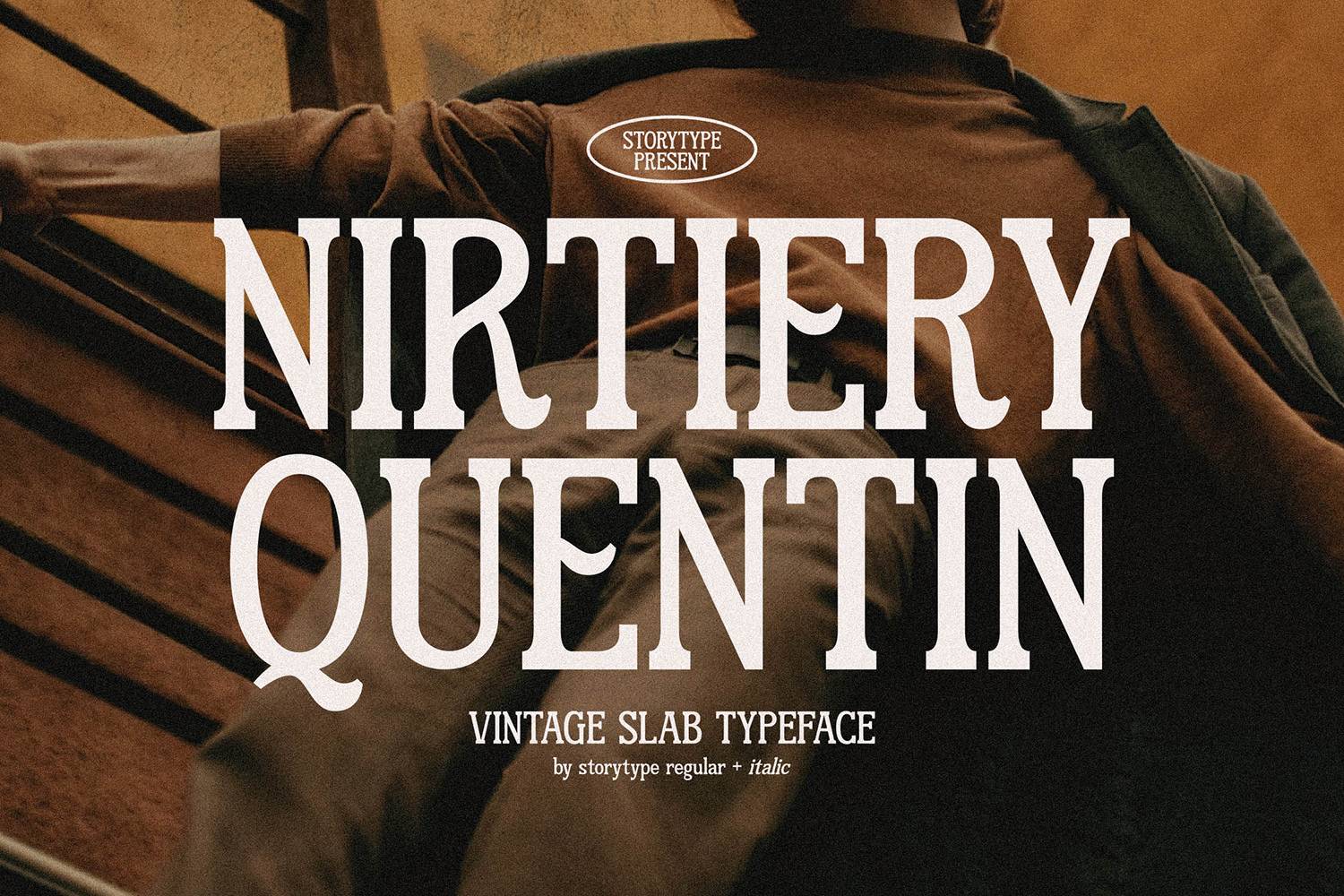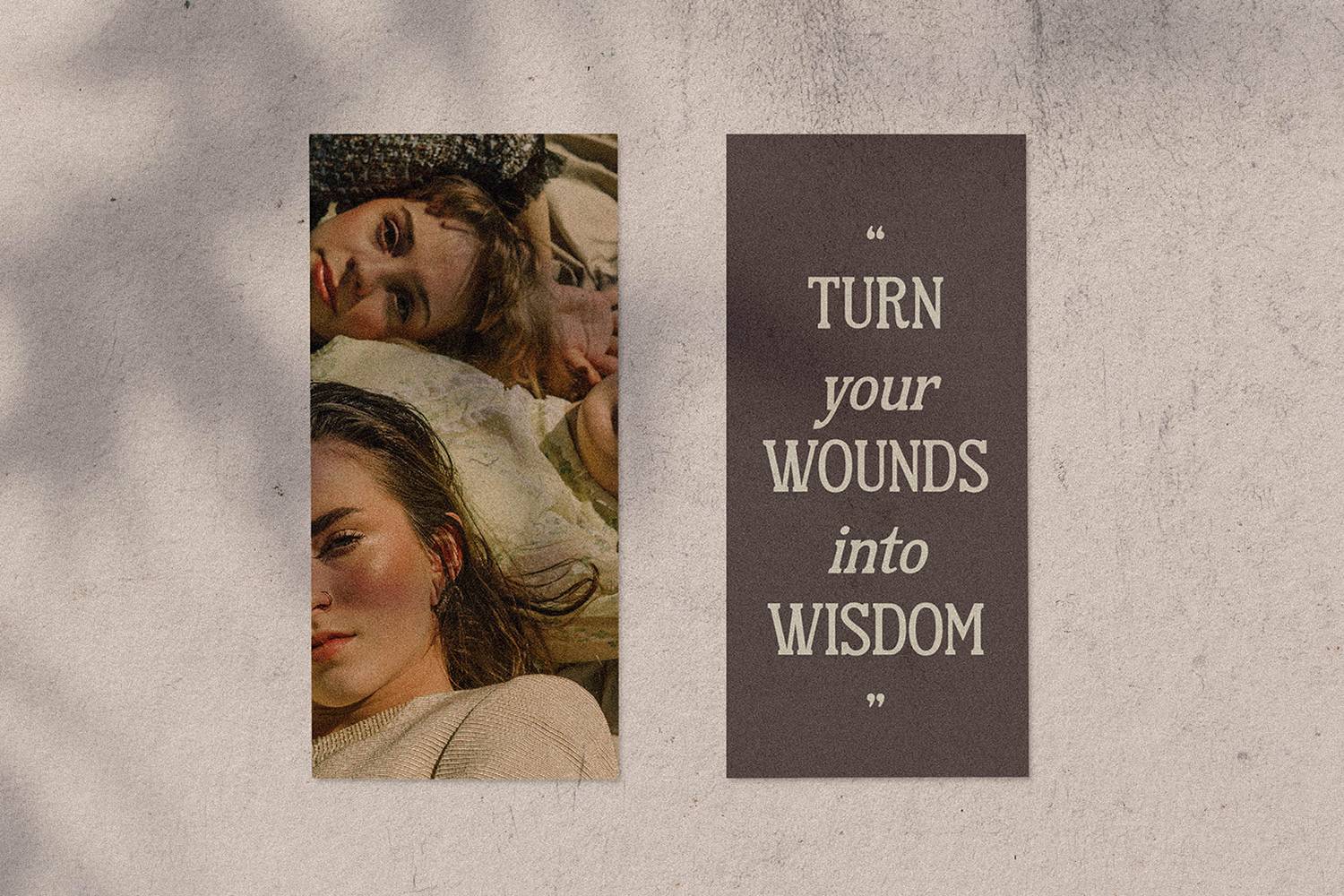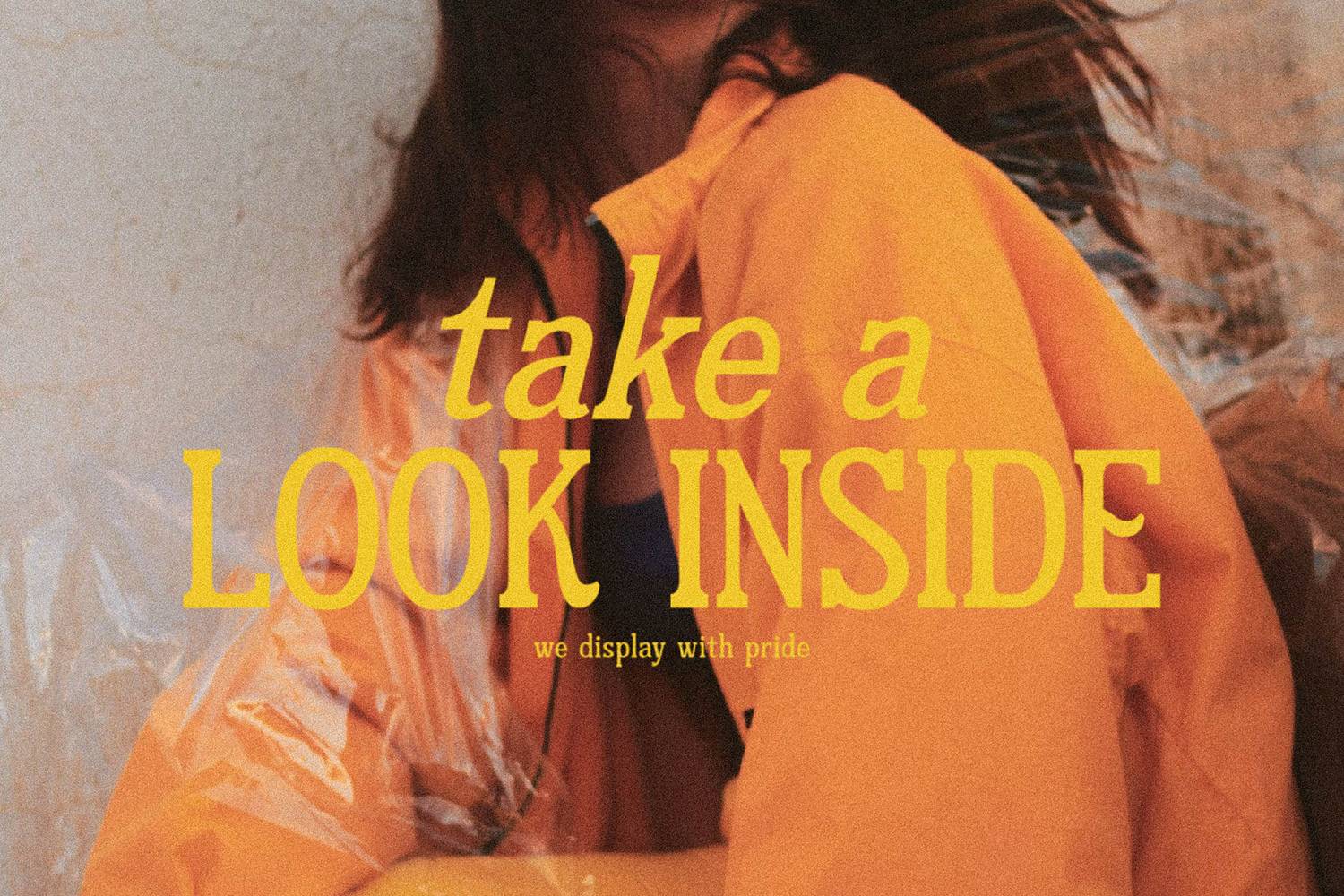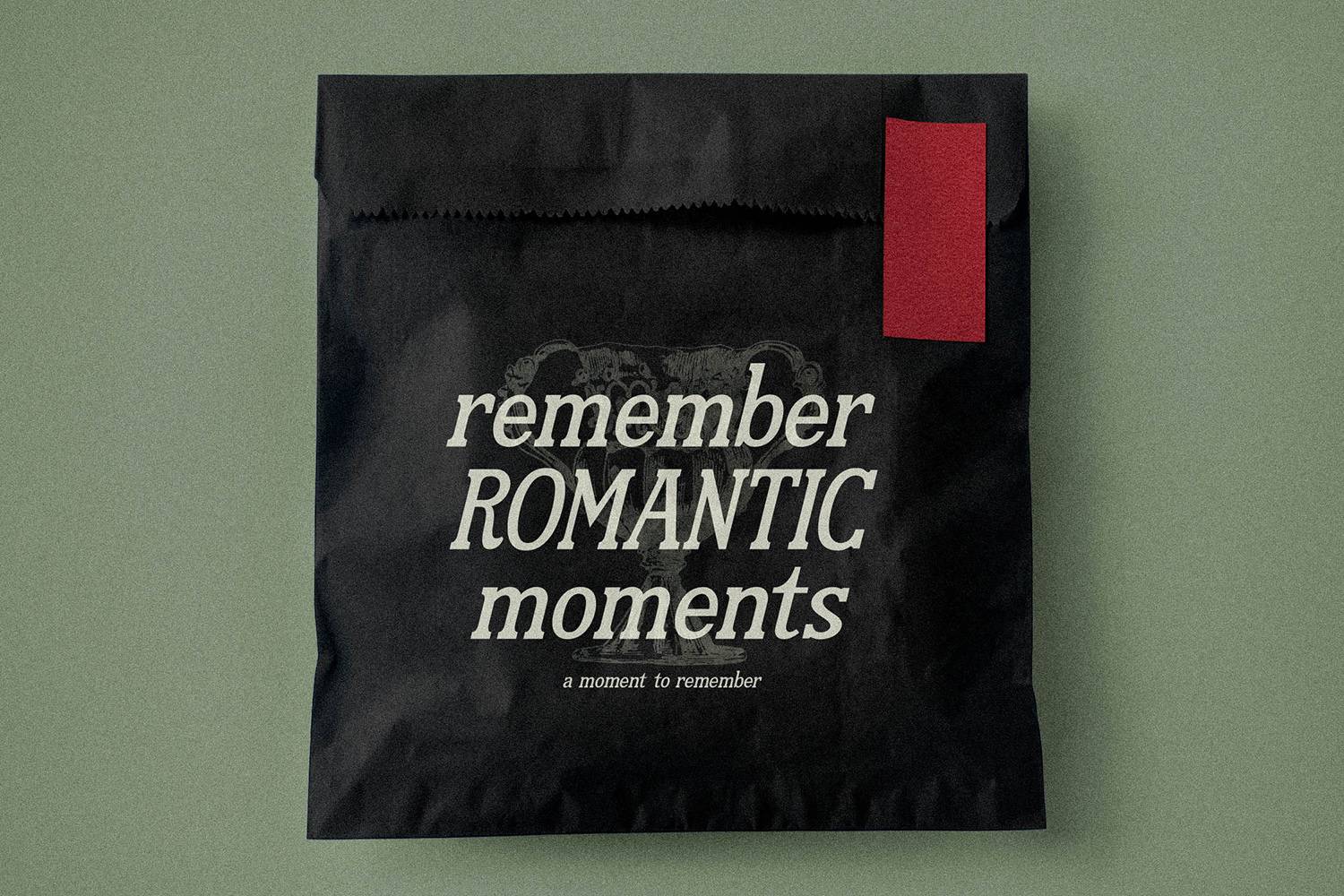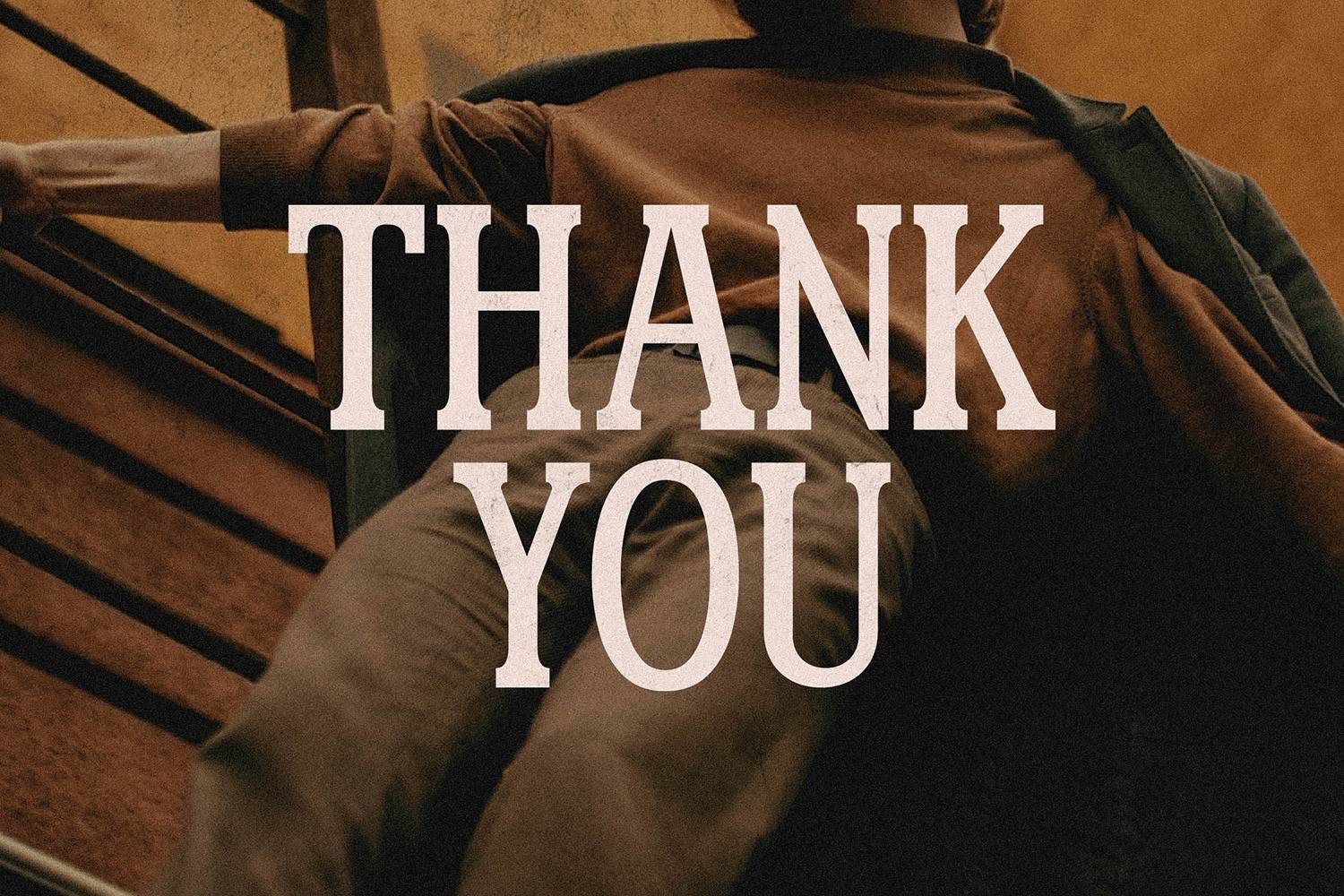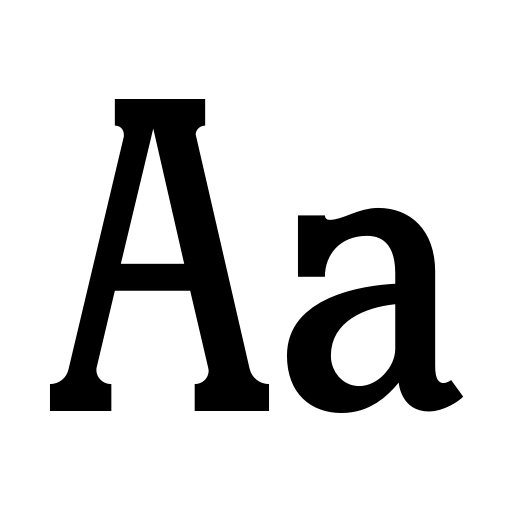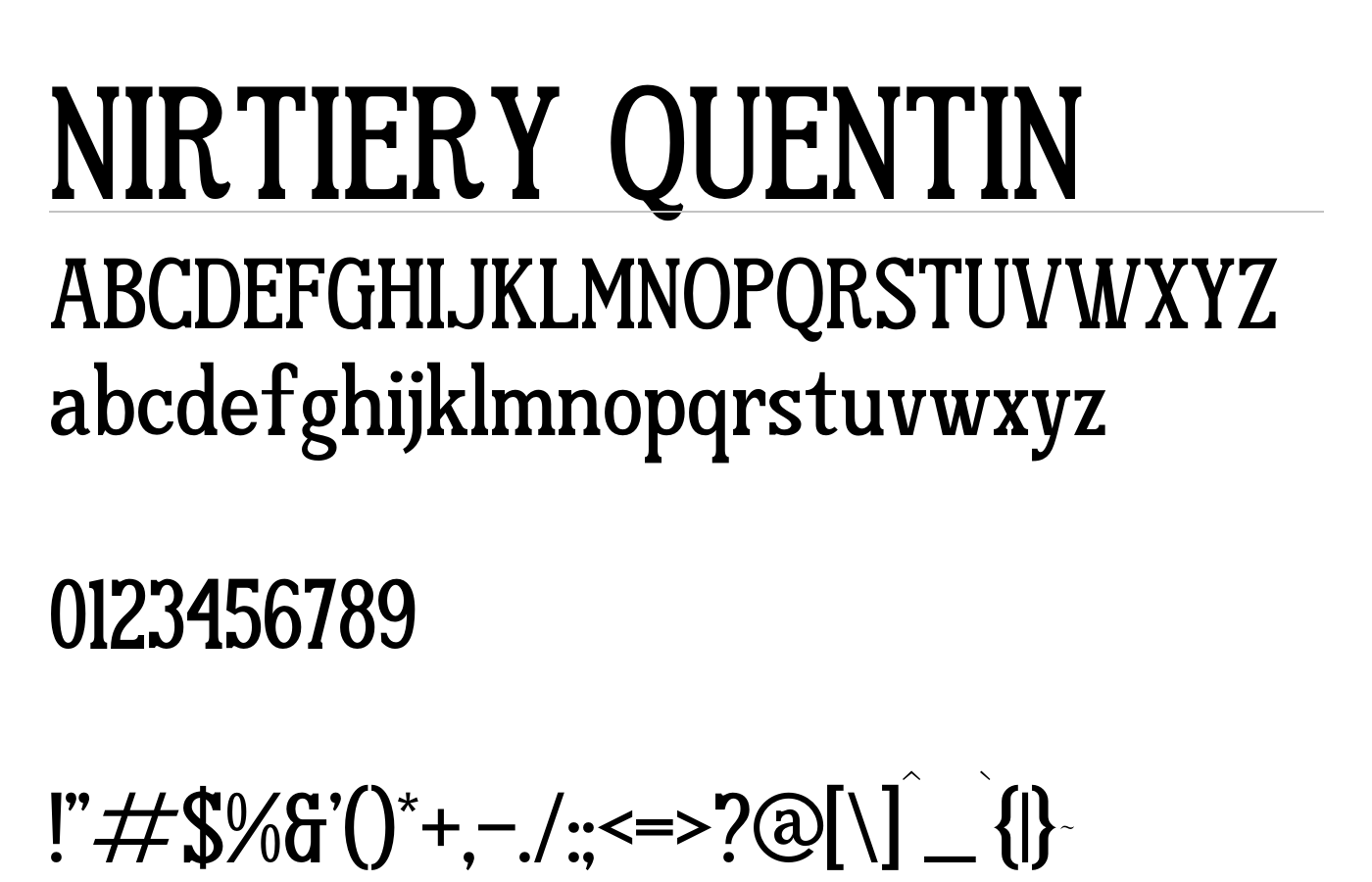
Nirtiery Quentin is a refined serif font with a classic, slightly condensed structure and moderate stroke contrast that lends it a sophisticated yet approachable feel. Its tall x-height and elegant serifs make it ideal for creating a strong, authoritative presence while maintaining readability. This font suits editorial headlines, branding for luxury or traditional businesses, and formal invitations where a timeless, dignified style is desired.
Nirtiery Quentin Font
About Nirtiery Quentin Font